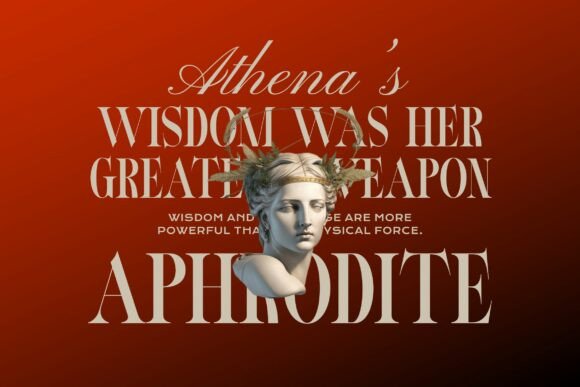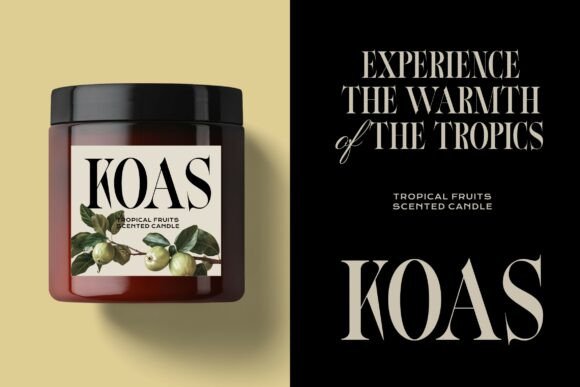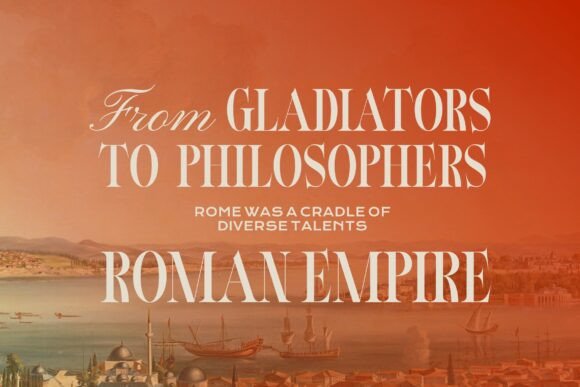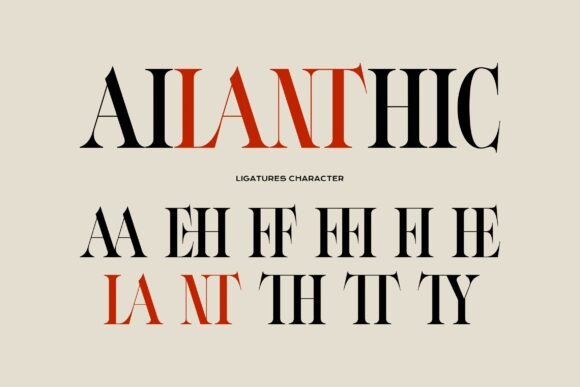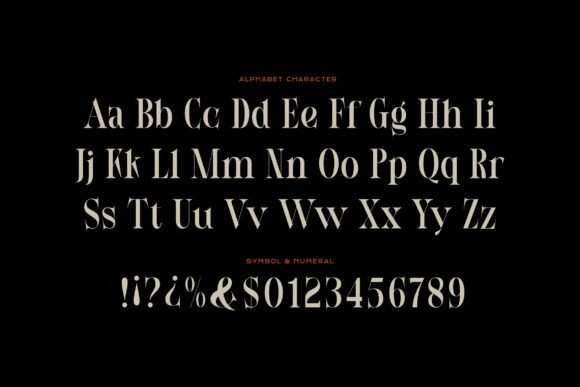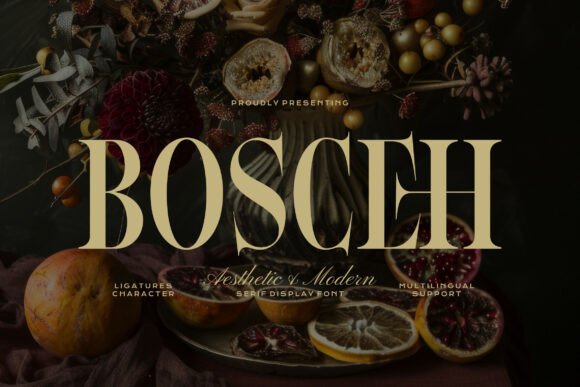
I still remember the project like it was yesterday. A high-end fashion brand needed a logo that exuded luxury and sophistication. As a designer, I scoured the internet for the perfect font, but nothing seemed quite right. That was until I stumbled upon the Bosceh Font. Its sharp serifs and tapered ends immediately caught my attention, and I knew I had found the one.
An Honest Review of Bosceh Font
- ✨ Elegant and Luxurious Feel: Bosceh font’s sharp serifs and significant contrast between thick and thin parts give it a classic and sophisticated appearance.
- ✅ Versatility: This font is perfect for various design projects, including corporate logos, editorial design, luxury branding, event invitations, headlines, logos, editorial use, or high-end packaging.
- 💻 PUA Encoding: With PUA encoding, all stylistic features and extras can be used with just a few clicks, making it easy to customize and adapt to your design needs.
While Bosceh font is an excellent choice for many design projects, there are a few things to keep in mind:
- ⚠️ Legibility at Small Sizes: Due to its elegant and refined nature, Bosceh font may not be the best choice for body text or small font sizes. It’s best used for headlines, titles, or other display text.
- 🤔 Limited Free Alternatives: As a premium font, Bosceh font may not have many free alternatives that match its quality and elegance.
The Designer Inspiration Behind Bosceh Font
The story behind Bosceh font’s creation is one of passion and dedication. Its designer, inspired by the elegance of classic serif fonts, sought to create a modern and luxurious font that would meet the needs of designers and crafters. With its sharp serifs and tapered ends, Bosceh font was born – a true masterpiece of typographic design.
| Font Name | Bosceh Font |
| Author | imoodev |
| What is Bosceh font best used for? | Bosceh font is ideal for design projects that demand a touch of elegance and distinctiveness, such as corporate logos, editorial design, luxury branding, event invitations, headlines, logos, editorial use, or high-end packaging. |
| Is Bosceh font easy to read? | Yes, Bosceh font is designed to be elegant and refined, but also legible. However, it’s best used for headlines, titles, or other display text, rather than body text or small font sizes. |
| Does Bosceh font support OpenType features? | Yes, Bosceh font supports OpenType features, including stylistic alternates, glyphs, and ligatures, making it easy to customize and adapt to your design needs. |